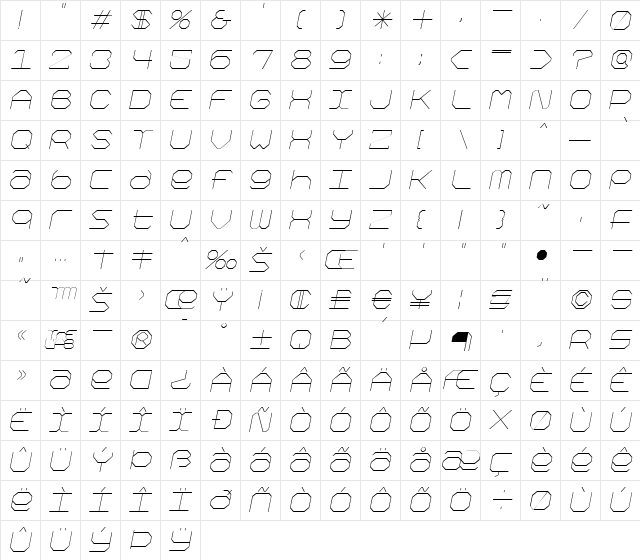
Kimono Italic
Design Context for Kimono Typeface
Kimono brings the precise, column-aligned rhythm of monospaced typography to designs that value technical clarity and systematic order. The slanted form adds forward momentum and visual energy.
A natural fit for code editors, technical documentation, developer-focused branding, and terminal-inspired UI.
Pro Tip: Pair Kimono with a proportional sans for UI contexts where code-style labels and regular body copy need to coexist.